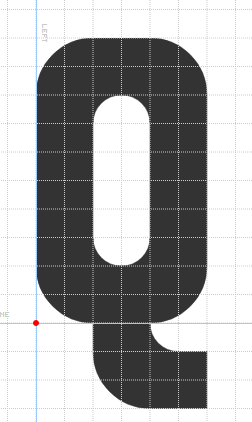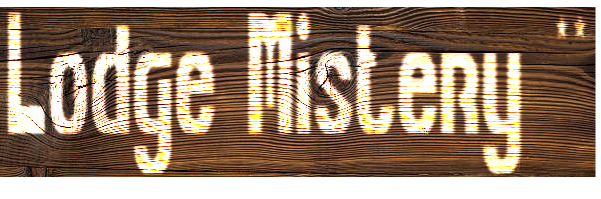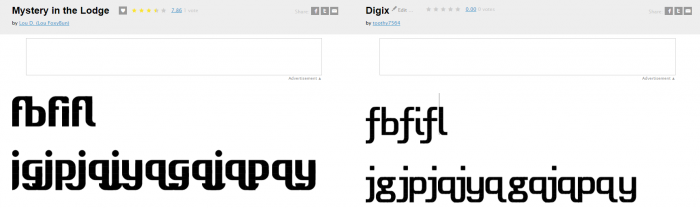
• Here it goes, finally my first font 100% made by me.
Since I'm about to make a lil' webseries, I thought I could do its own font! And here it goes.
I could make more glyphs in the future in this font but this cover up, so far, all 95 unicode characters, so yeah. I'm glad to see how it turned out.
I like the style of this a lot—it reminds me of some of the earliest creations on FS, when all that was available was the simple bricks used in this fontstruction. The varied contrast between the uppercase and lowercase seems odd but I think it works very well. A couple of suggestions:
- The lowercase letters with ascenders (b, d, f, h, k, t) have an x-height (height of the lower portion) of 5 squares, which doesn't quite fit with the rest of the font (6 squares). I suggest making the bottom part of each a bit taller to blend in better with the rest of the lowercase, including raising the bar by 1 square on t and perhaps f as well.
- Speaking of f and t, they seem a little unbalanced to me—I'd try either lengthening their bars or shortening the over-/underhangs.
- The Q looks very similar to the G and could be mistaken for a g; perhaps try something like this instead:
It was supposed to look like a kind of wood letters you'd put on a wooden sign and also was meant to be mainly used in one of my outside-of-FS projects. I guess I can give it a little renovation anyway (along with a sample).
There's just about the f and t unbalancements. I'm not sure to want to change them as, the way the f is made now make it able to have its overhang overhanging above the next letter, with the t just following its style. But I'll try to see for a solution.
I also took the opportunity to change a bit the 1 whose look was bugging me.
Loving the bold Eurostile feel of this one. Good job!
Oh yeah, as a heads up I noticed a handful of your lowercase letters, when put together, have very weird overlapping problems. For instance, if you type out a username of, let's say "longjohn15", the tail of the j will run into the handle of the g and it seems like an oversight. You can use character kerning to try to avoid this. In my most recent font (pictured on the right), there were several characters I gave scrutiny to, so I could make it look nice and fit snuggly together without certain letters running into each other or looking too spread apart. q and g put next to each other still looks a little odd, but everything else seems to lineup without disrupting the flow of the font. In fact, I tastefully make the letter combination 'qj' (as well as 'qJ', 'QJ', 'Qj', 'Qf', and 'qf') combine in a way that makes it seem like it could be a ligature. Hopefully you can use this to improve your font to your liking!
Thanks for the feedback, and I'm conscious of the weird overlapping "problems". However, since this font was the first made, thus before I knew about kerning, I decided to keep it without kerning. All overlapping aren't oversaw, they were intentional though, I checked them all.
Also, funny thing, I only heard about Eurostile recently. I mean I already saw it before but, yeah, that wasn't what I was thinking when making this font.